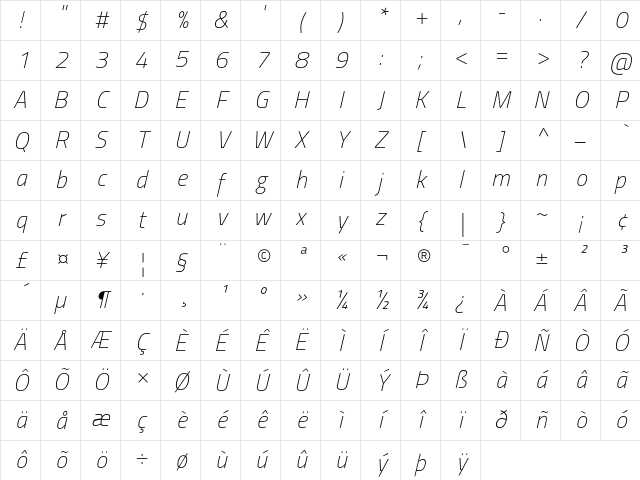
Titillium Lt Italic
Titillium Lt Family
Design Context for Titillium Lt
Titillium Lt is a composed and adaptable typeface that performs quietly and consistently across a wide range of design contexts. The slanted form adds forward momentum and visual energy. Its slender proportions lend an understated elegance to any composition.
Pro Tip: Use Titillium Lt for emphasis, pull quotes, and subheadings where its slanted energy can add rhythm to the layout.